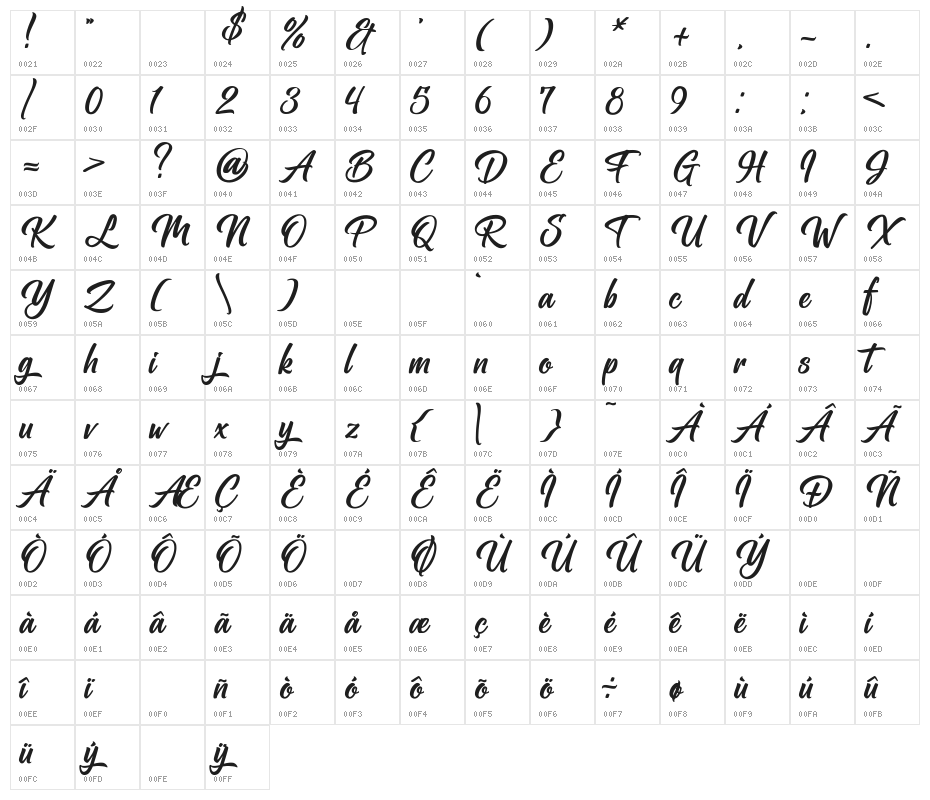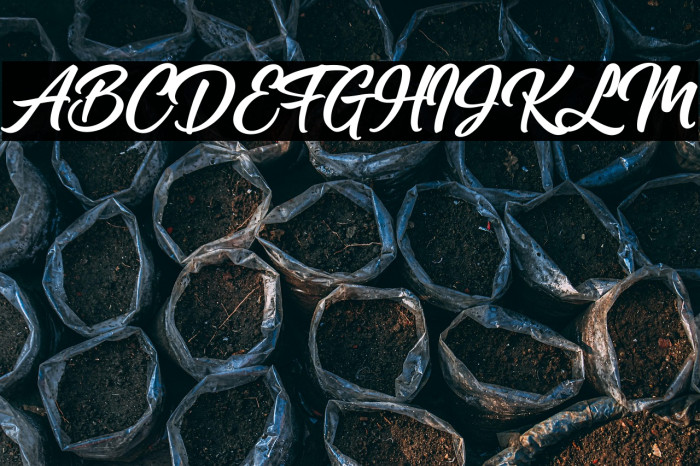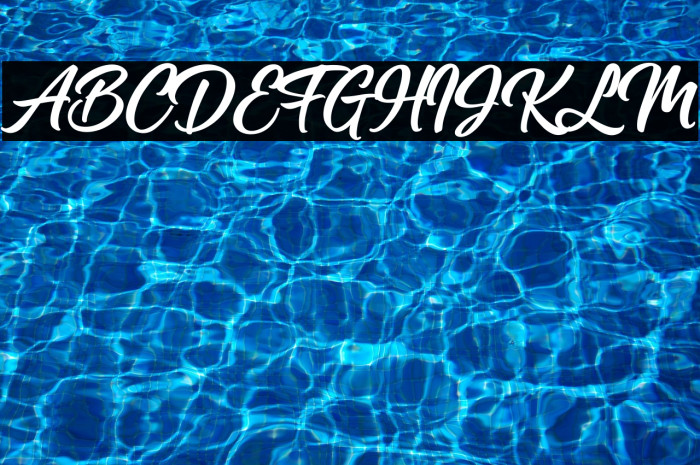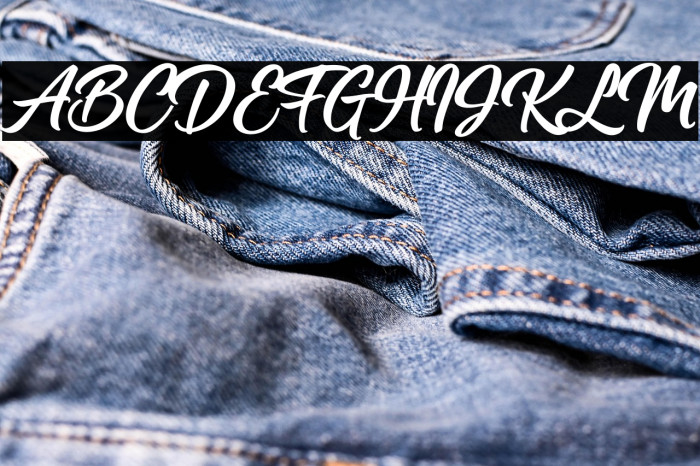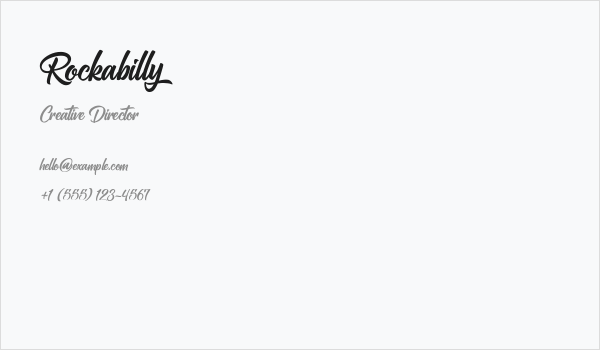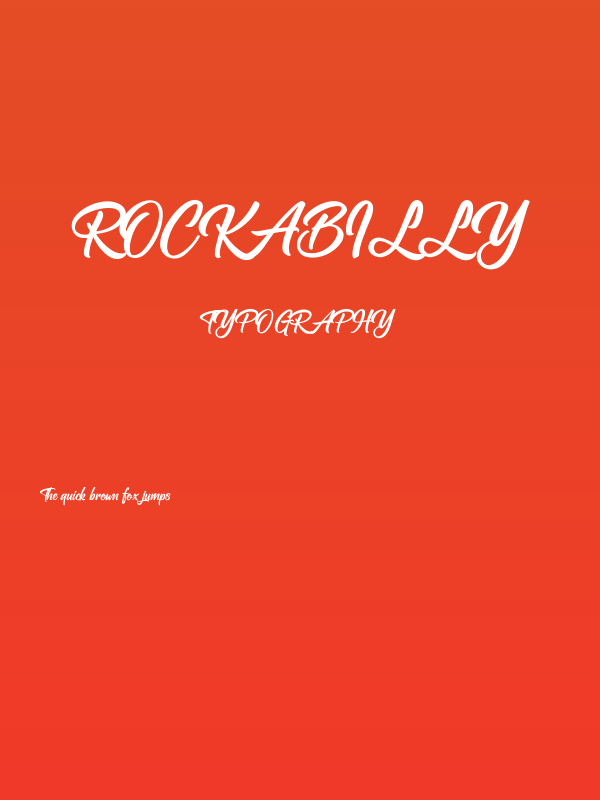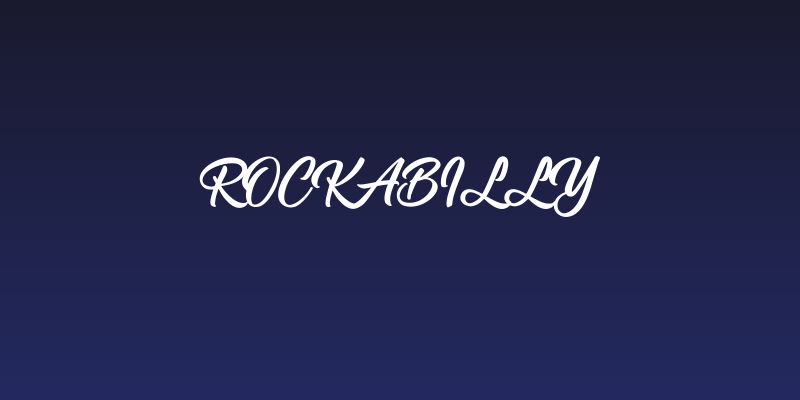
Rockabilly Font
Rockabilly Description
This font features a bold, cursive style with a strong retro flair. The uppercase letters are elegantly curved, with a smooth flow that connects each character seamlessly. The lowercase letters maintain the same fluidity, with some characters featuring distinctive loops and swashes, adding to its decorative appeal. The numerals are bold and consistent with the overall style, providing a cohesive look. Special characters are designed with the same attention to detail, ensuring they complement the alphabetic characters. This font exudes a sense of vintage charm, reminiscent of mid-20th-century design aesthetics.
Overall StyleVintage
Proposed ProjectsIdeal for retro-themed designs, vintage posters, branding, and logo design.